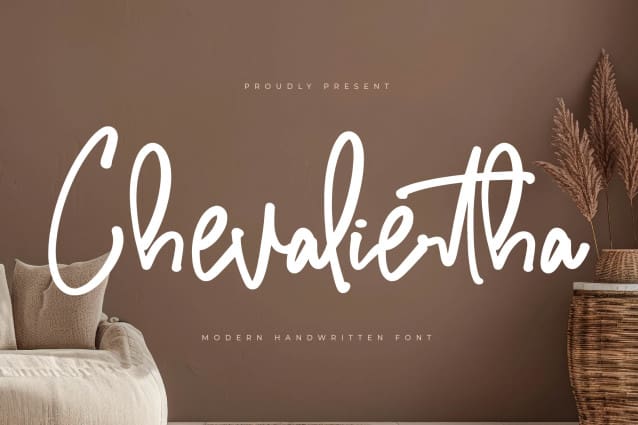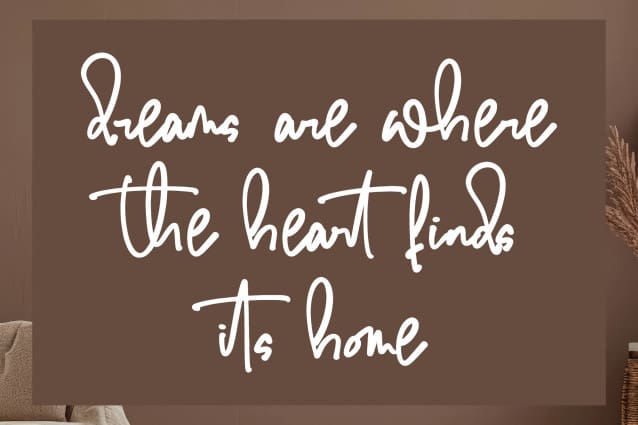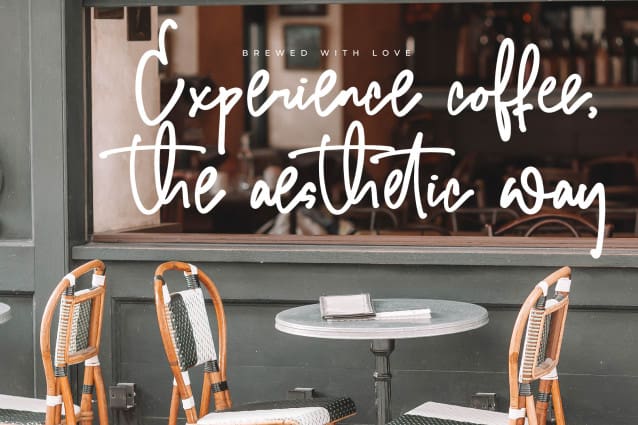
Chevaliertha Handwritten Font
Chevaliertha Handwritten Font , from Letterena, is a Luxury Script font, suitable for any projects such as: logos, branding projects, homeware designs, product packaging, mugs, quotes, posters, shopping bags, t-shirts, book covers, name card, invitation cards, greeting cards, label, photography, watermark, special events, and all your other luxury and beautiful projects that need a Luxury Script taste.